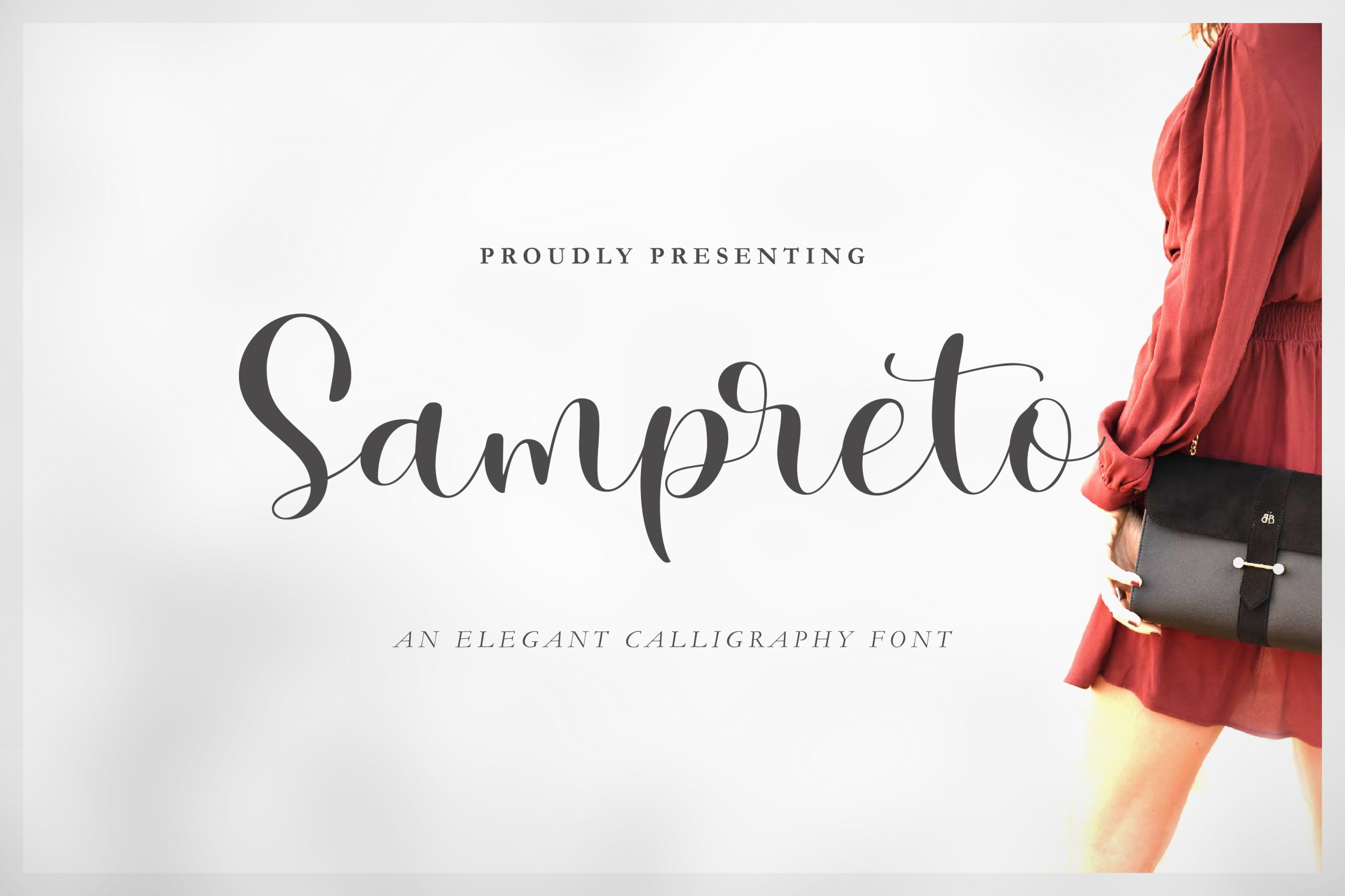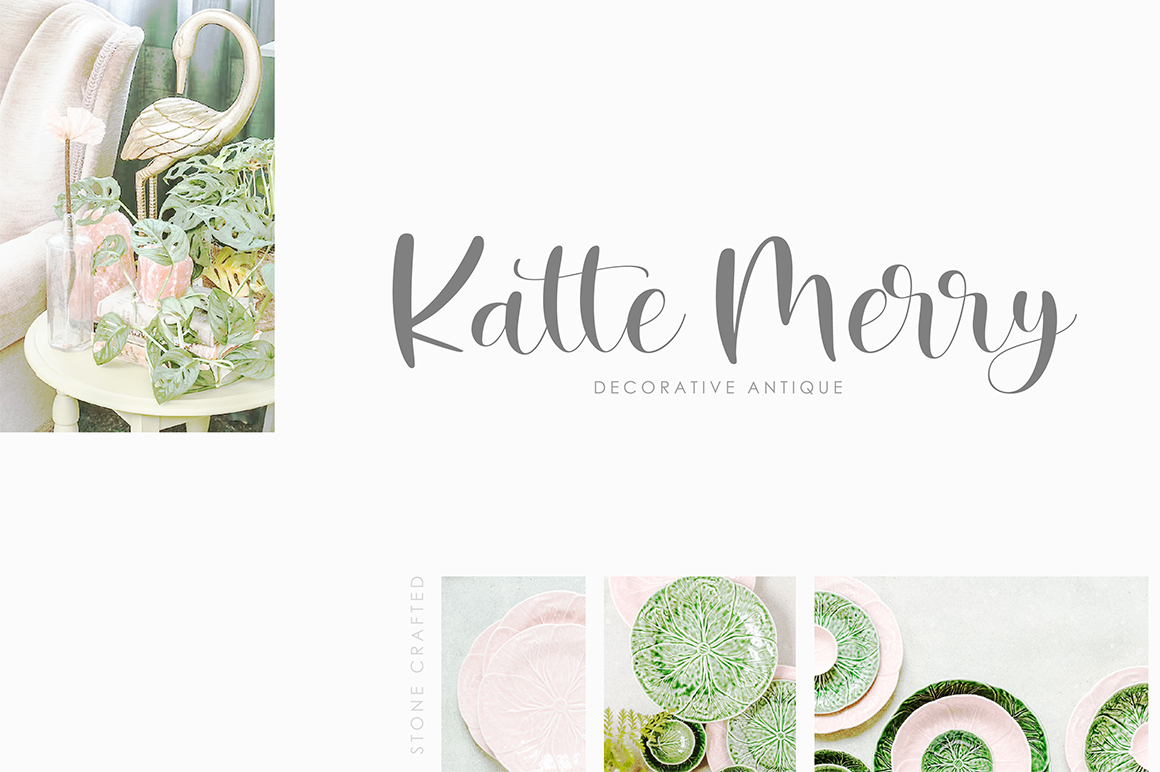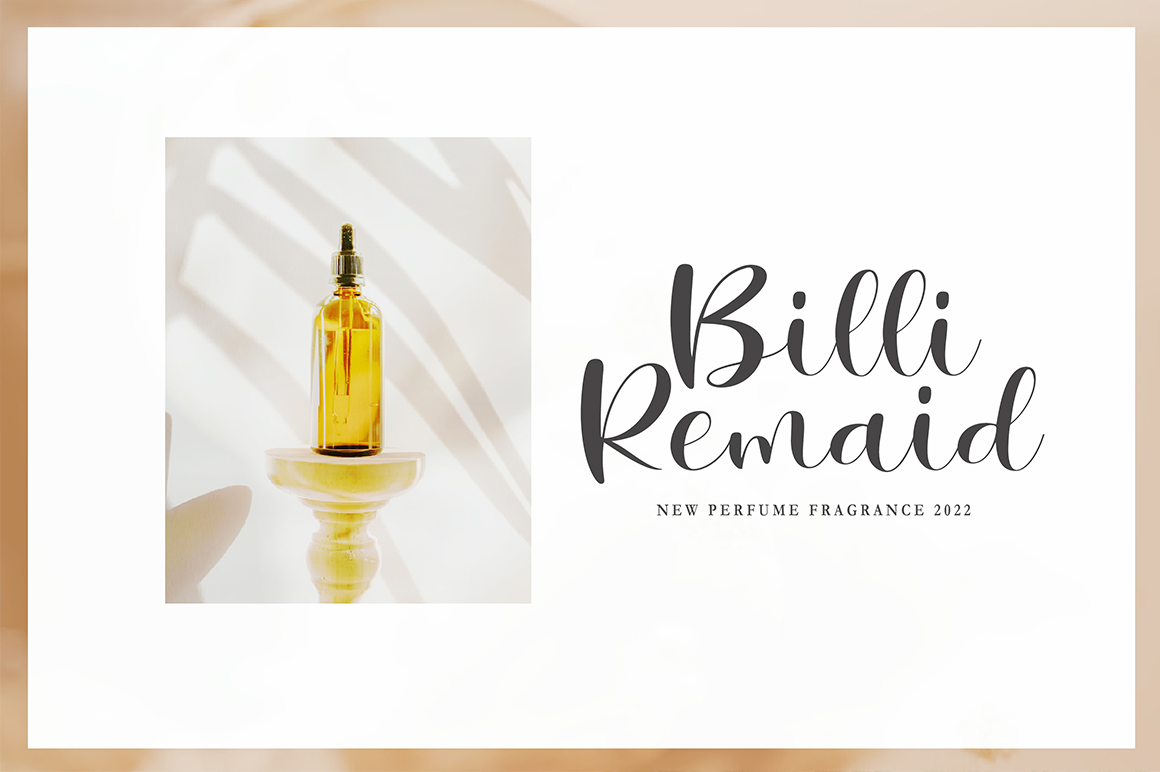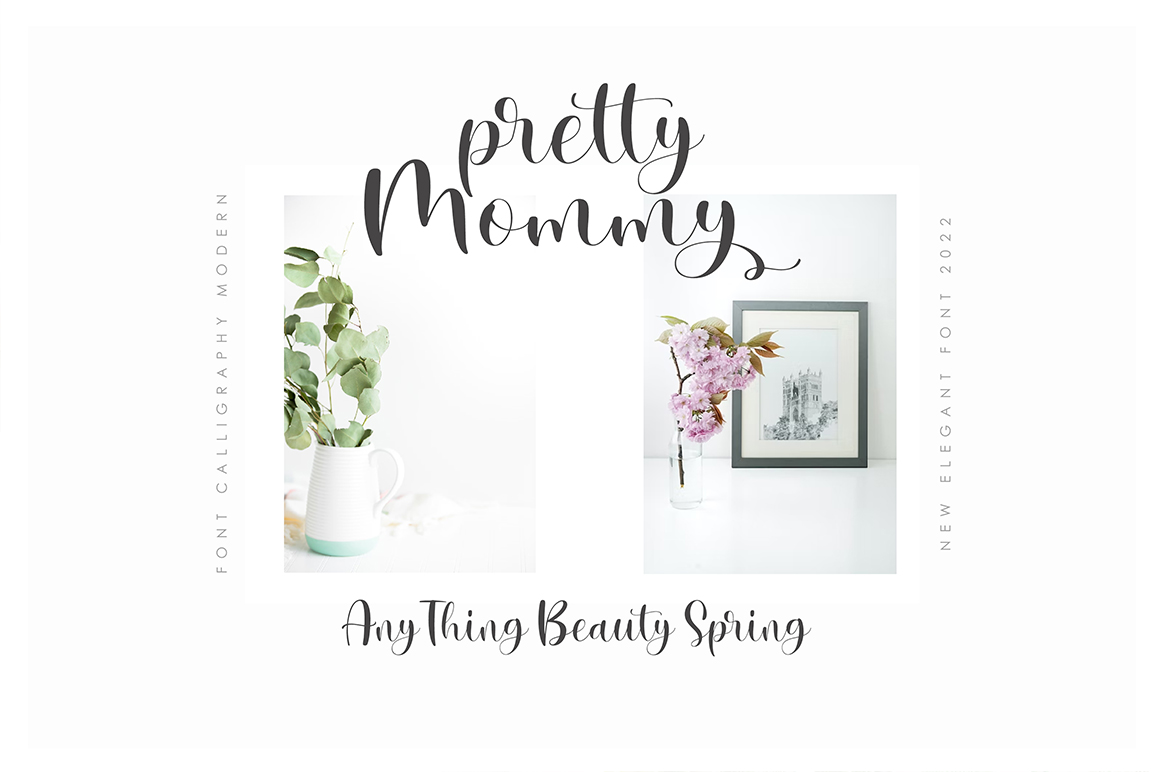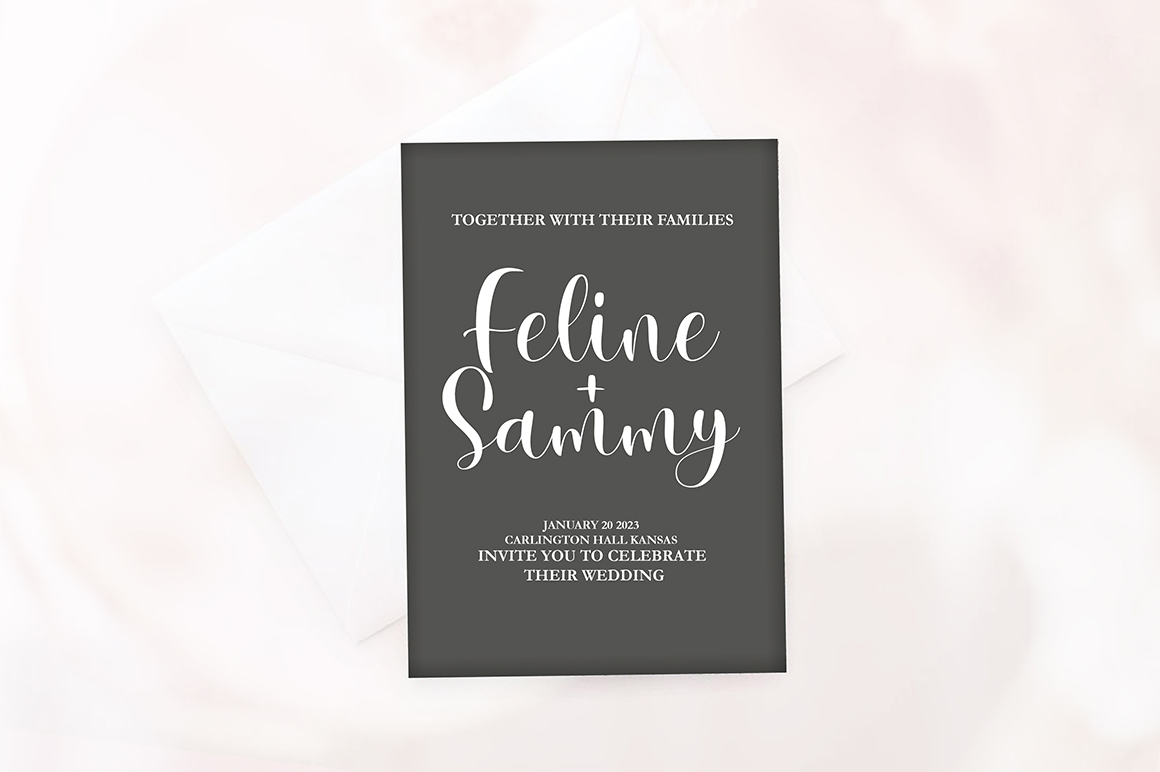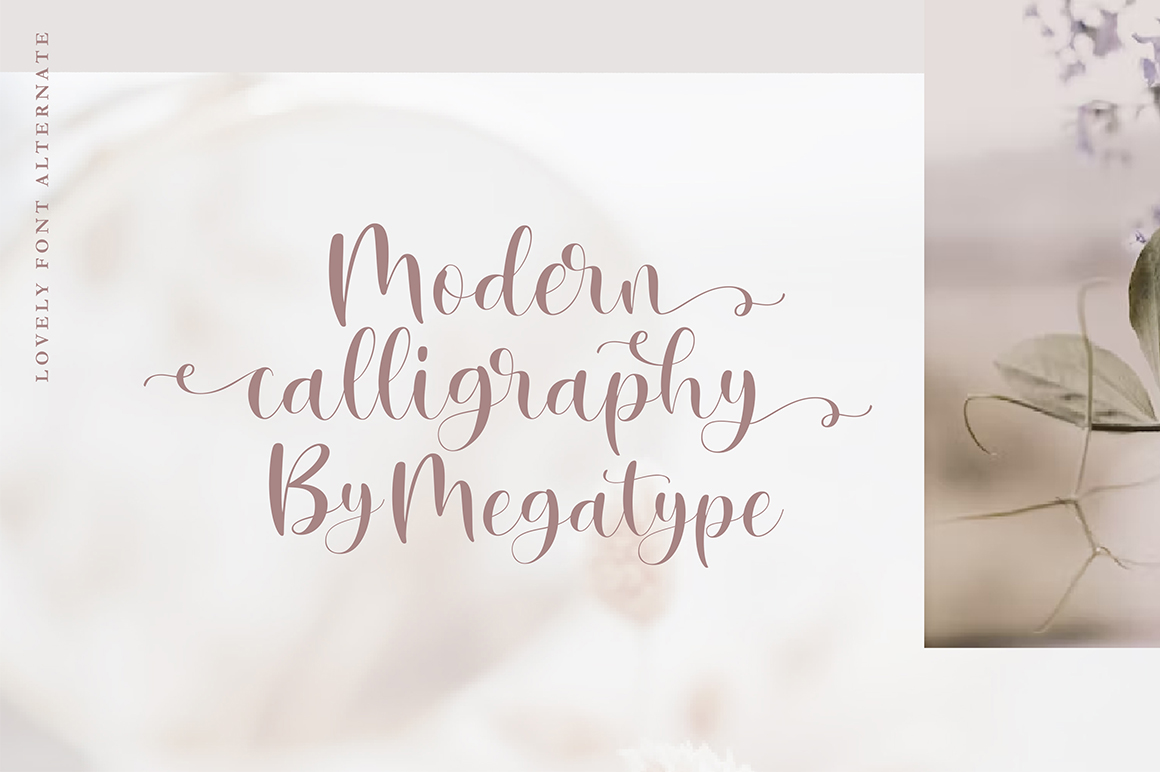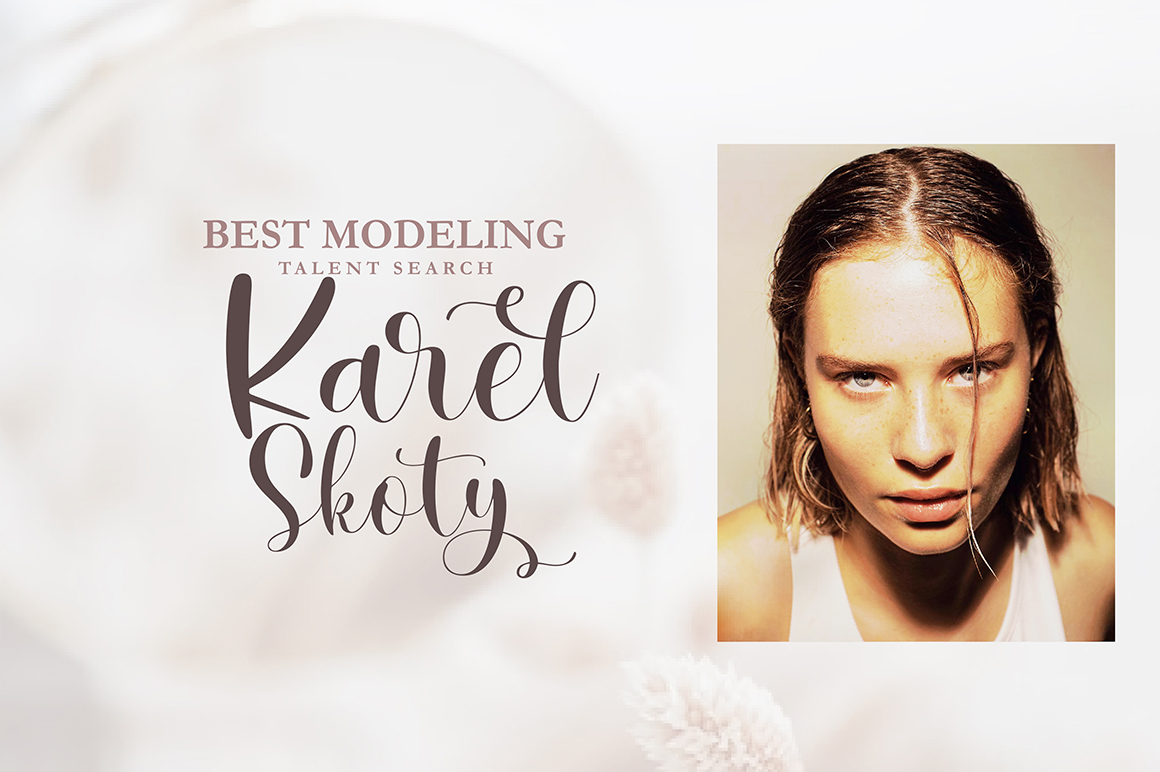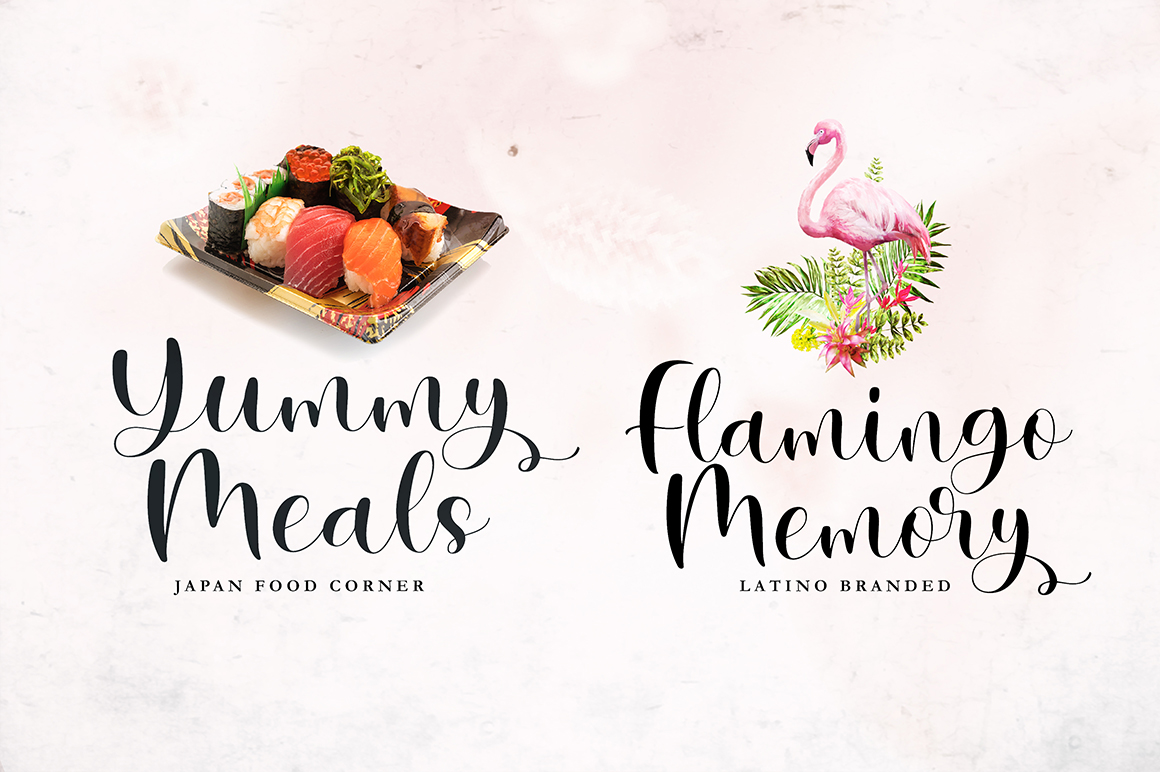
Proudly presenting Sampreto is an elegant calligraphic font.
Sampreto is made especially for those who need an elegant calligraphy font with beautiful curves that is very charming for their design needs.
Sampreto is perfect for modern projects, branding, wedding invitations, wedding decorations, brand name, cricut projects, crafts, birthday cards, svg files, shirts, quotes, great cards, prints, logos and much more !
Sampreto is built with OpenType features and includes start and end swashes, numbers, punctuation, alternatives, ligatures and also supports other languages.